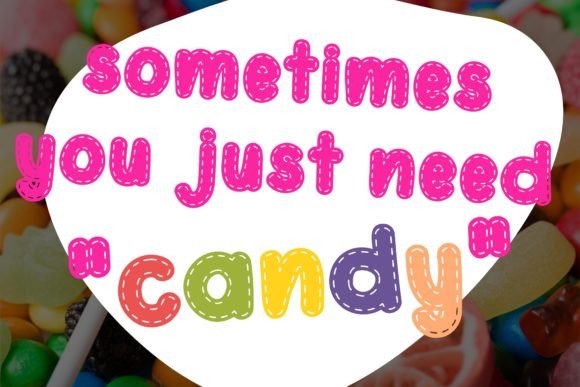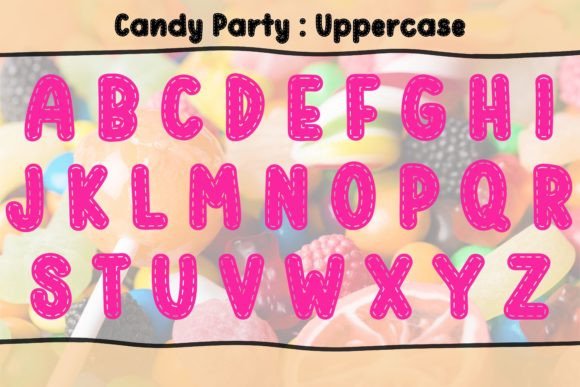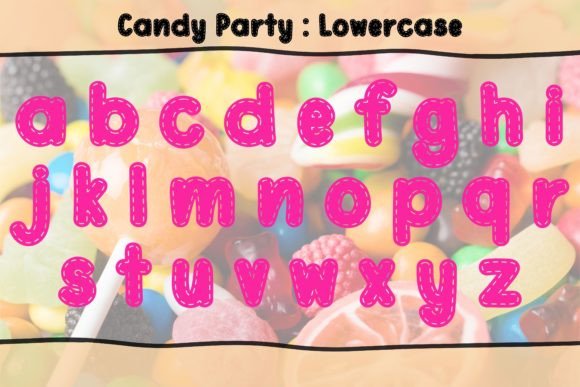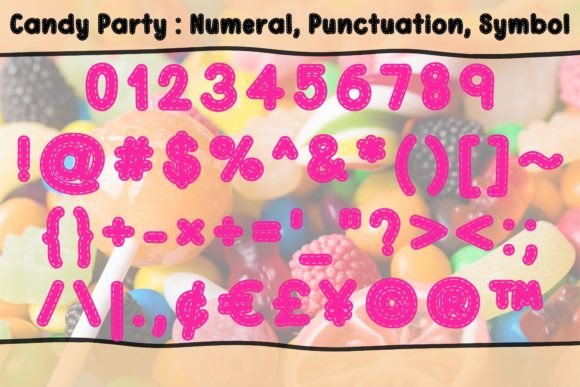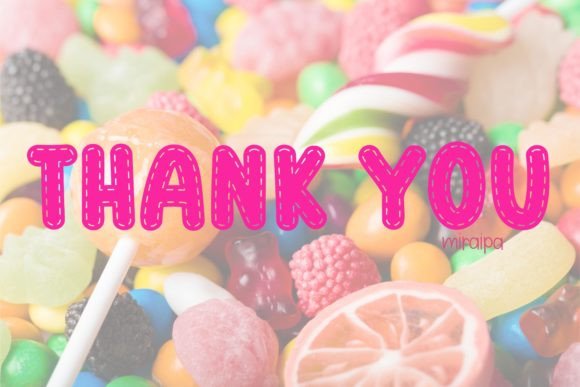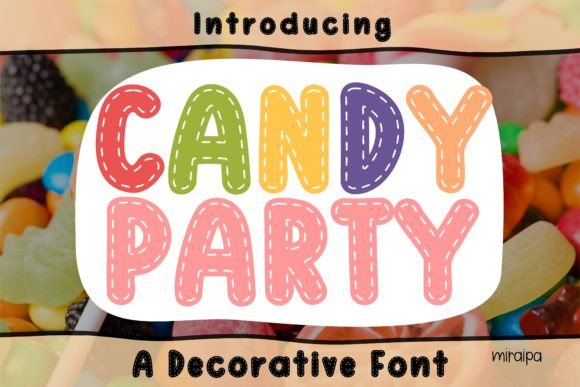
Candy Party Font: Add a Sweet Touch to Your DIY Projects
Are you looking for a font that can add a playful and friendly touch to your DIY projects? Look no further than the Candy Party Font! This decorative font is designed to bring a smile to your face and a splash of color to your creations. In this article, we’ll explore the features and benefits of the Candy Party Font, and how it can be used to take your projects to the next level.
What is Candy Party Font?
Candy Party Font is a decorative font designed in a friendly and playful style. It’s perfect for adding a sweet touch to your colorful projects, mom projects, weddings, back-to-school materials, party decorations, invitations, posters, blogs, clothing, greeting cards, social media posts, and more. The font’s playful and whimsical design makes it ideal for projects that require a fun and approachable tone.
Features of Candy Party Font
• Playful and Friendly Design: The Candy Party Font features a playful and friendly design that’s sure to bring a smile to your face. Its whimsical style makes it perfect for projects that require a fun and approachable tone.
• Colorful and Vibrant: The font comes in a range of colors, making it perfect for colorful projects and designs. You can use it to add a pop of color to your creations and make them stand out.
• Versatile: The font is versatile and can be used for a wide range of projects, from party decorations and invitations to social media posts and blog articles.
Benefits of Using Candy Party Font
So, why should you use the Candy Party Font in your DIY projects? Here are just a few benefits:
• Adds a Personal Touch: The Candy Party Font adds a personal touch to your projects, making them more unique and special.
• Perfect for DIY Projects: The font is perfect for DIY projects, such as crafting, scrapbooking, and party planning.
• Great for Social Media: The font is also great for social media posts, as it can help your content stand out and grab attention.
• Easy to Read: Despite its playful design, the Candy Party Font is easy to read, making it perfect for use in titles, headings, and body text.
Ideas for Using Candy Party Font
Here are some ideas for using the Candy Party Font in your DIY projects:
• Party Decorations: Use the font to create colorful party decorations, such as banners, garlands, and signs.
• Invitations: Use the font to create fun and playful invitations for parties, weddings, and other special events.
• Social Media Posts: Use the font to create eye-catching social media posts that grab attention and drive engagement.
• Blog Articles: Use the font to add a playful touch to your blog articles and make them more engaging.
• Crafting and Scrapbooking: Use the font to add a personal touch to your crafting and scrapbooking projects.
Font Name Candy Party Font
Author miraipa
The Candy Party Font is a fun and playful font that’s perfect for adding a sweet touch to your DIY projects. With its playful and friendly design, colorful and vibrant style, and ease of use, it’s a great addition to any font library. Whether you’re a designer, crafter, or DIY enthusiast, the Candy Party Font is sure to bring a smile to your face and a splash of color to your creations. So why wait? Download the Candy Party Font today and start creating!